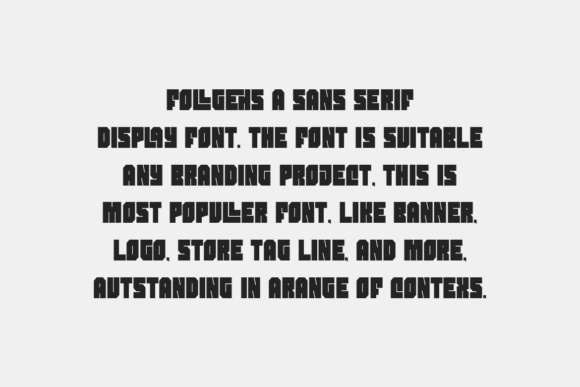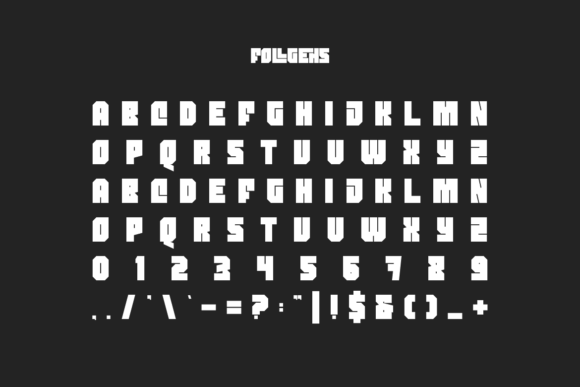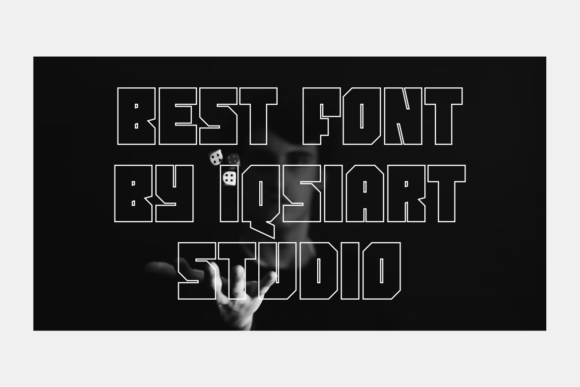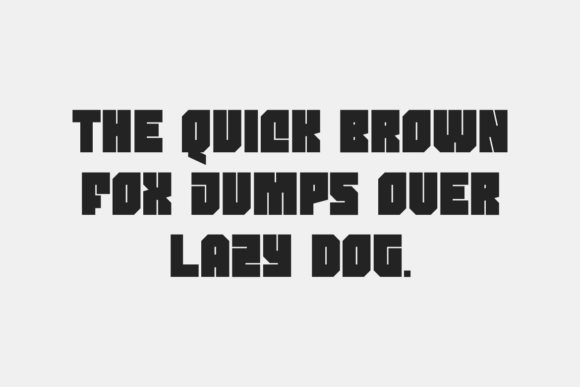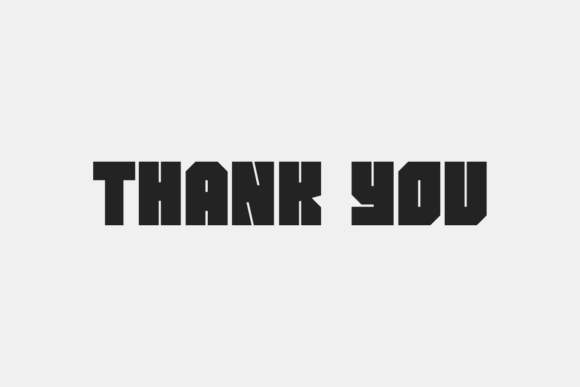
Introduction to Follgehs Font
Follgens is a bold, futuristic sans-serif font with a geometric and blocky design.
Its sharp edges and strong presence make it perfect for modern branding, posters, tech-themed projects, and urban-inspired designs This eye-catching typeface exudes confidence and power, making your text stand out in any setting.
Key Features of Follgehs Font